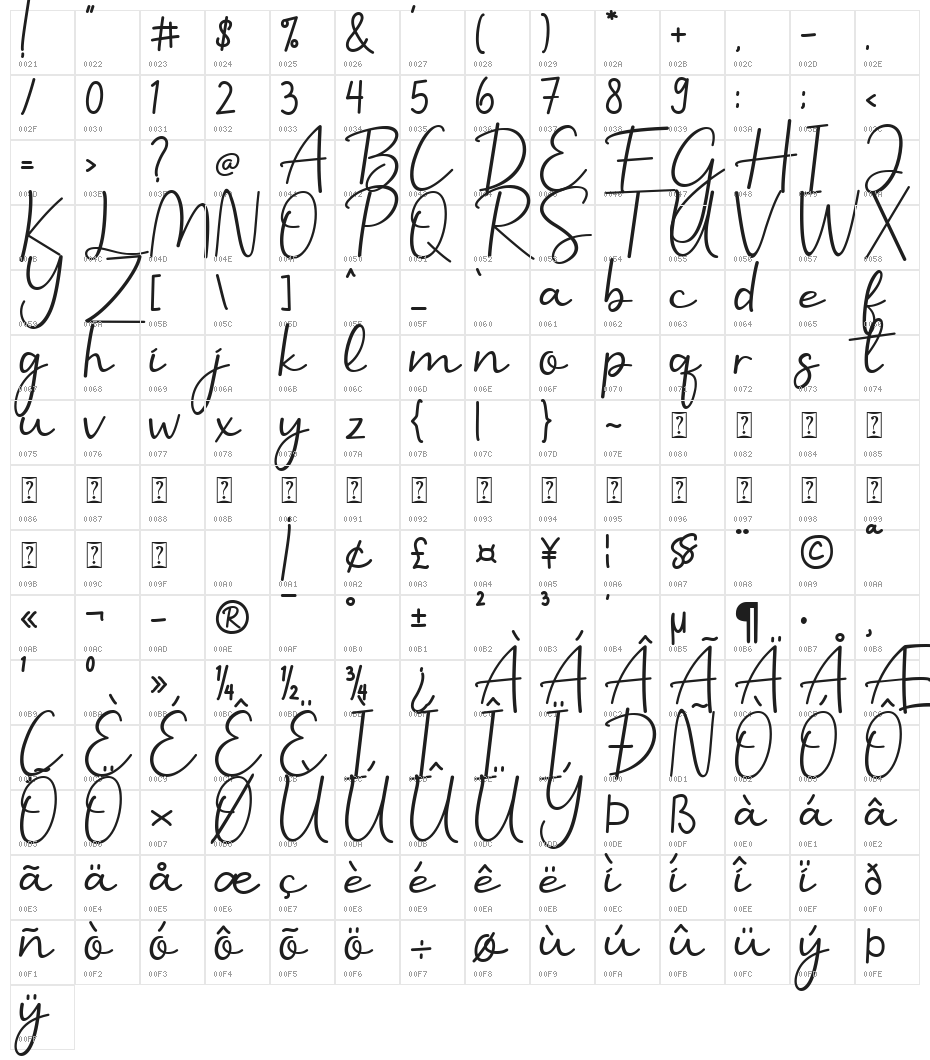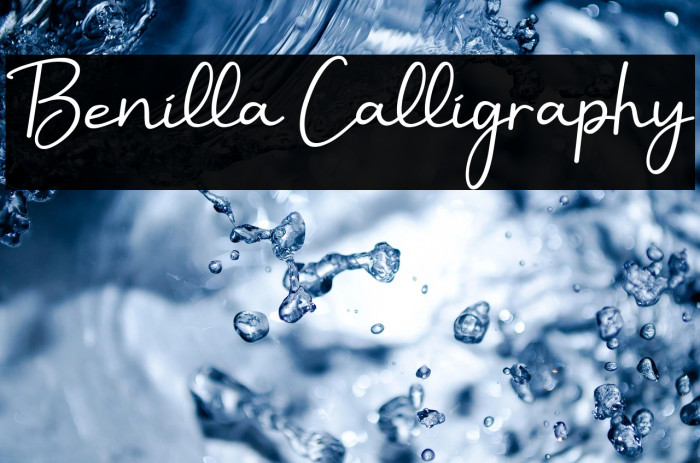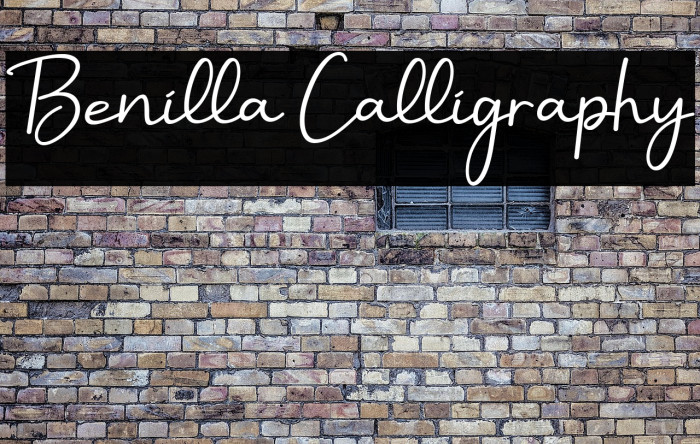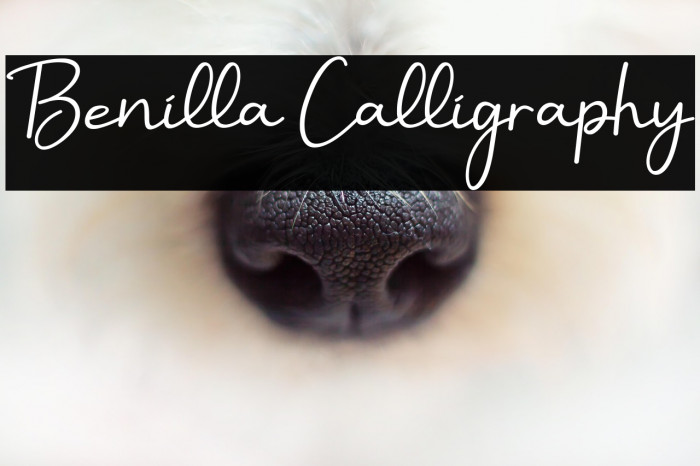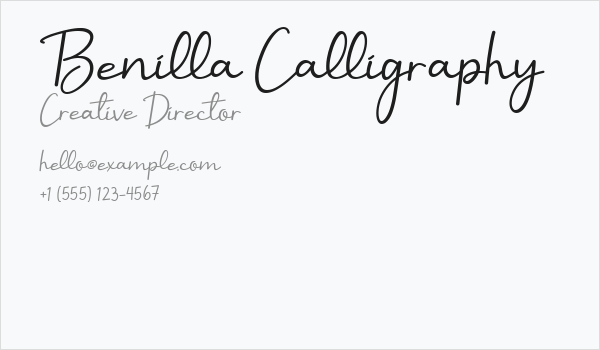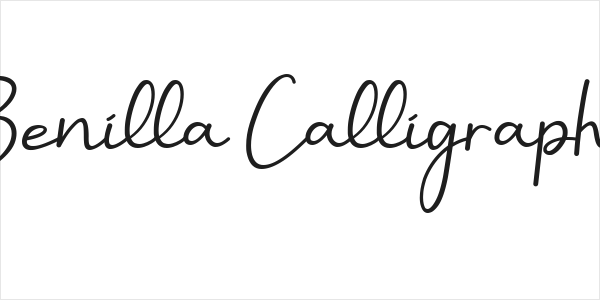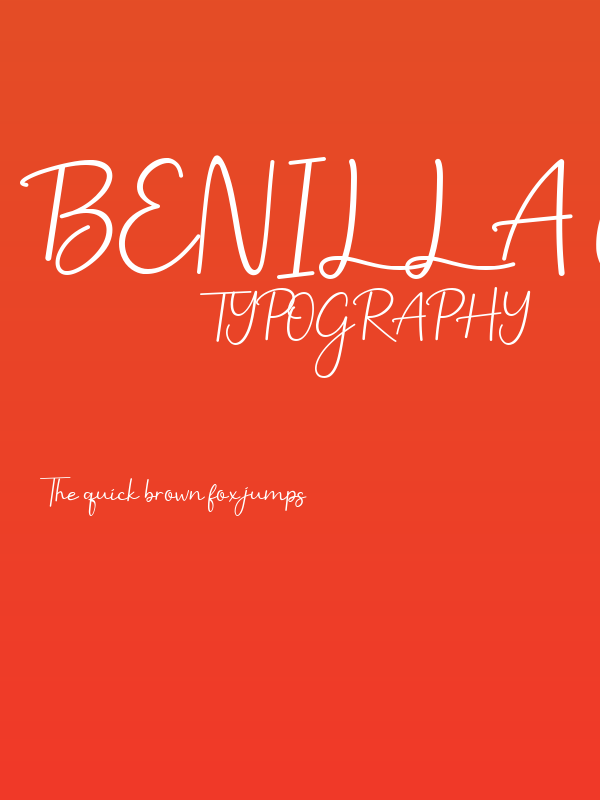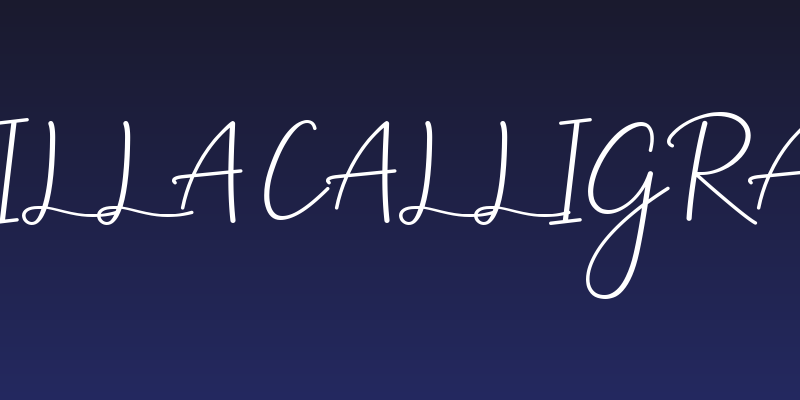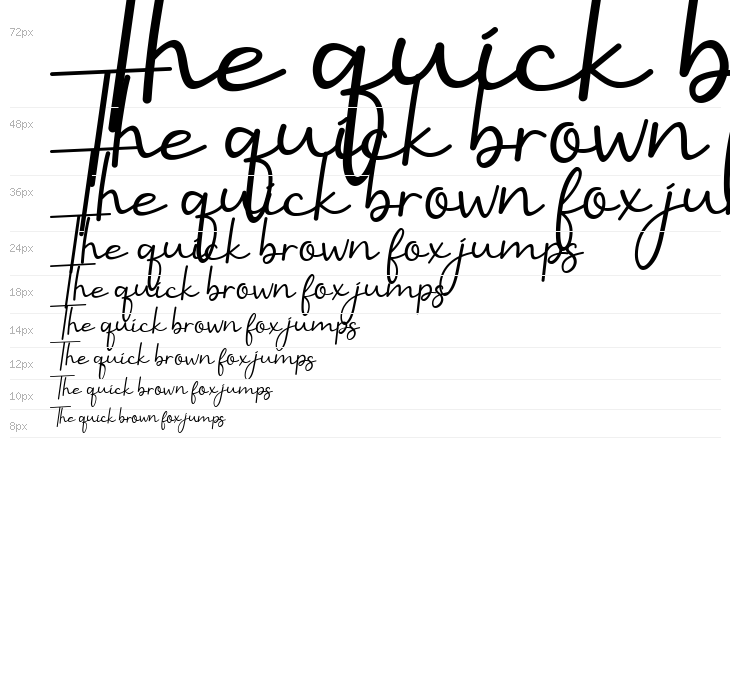
Benilla Calligraphy Font
Benilla Calligraphy Description
This font exudes a graceful and flowing calligraphic style, characterized by its elegant and fluid strokes. The uppercase letters are tall and slender, with a slight slant that adds a dynamic feel. The lowercase letters are more rounded and connected, enhancing the script-like appearance. The numerals are consistent with the overall style, maintaining a smooth and cohesive look. Special characters are thoughtfully designed to match the aesthetic, making this font versatile for various applications.